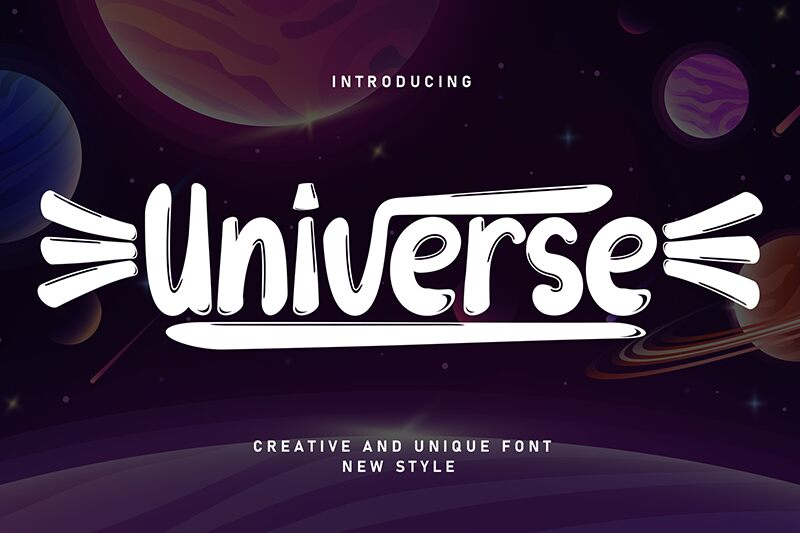
Universe
This bold brush font is inspired by the classic universe, and the name is quite fitting. The bold, sharp outline of this Universe font brings an unusual aura to your writings.
The font has a very distinctive and noticeable look to it, so you can use it on its own or pair it with other fonts. You can choose Universe for your comic strips, comic book titles, T-shirt and mug designs, posters, and even book cover designs.